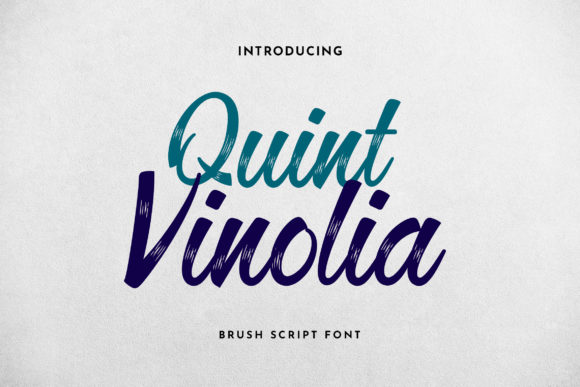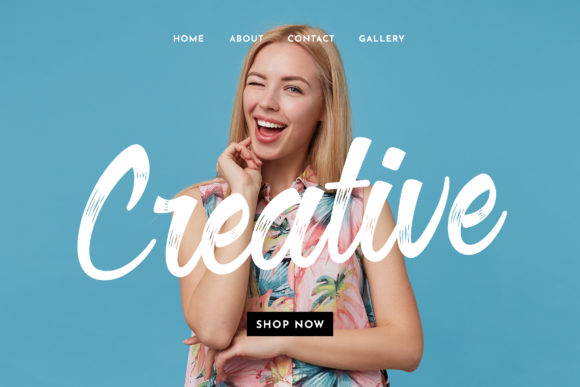
About Quint Vinolia Font
Quint Vinolia is a delicate brushed handwritten font. It has beautiful and well balanced characters and as a result, it matches a wide pool of designs. Add it to your most creative ideas and notice how it makes them come alive!